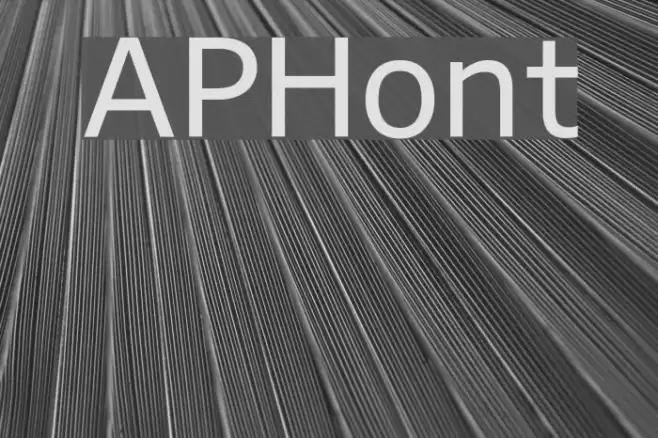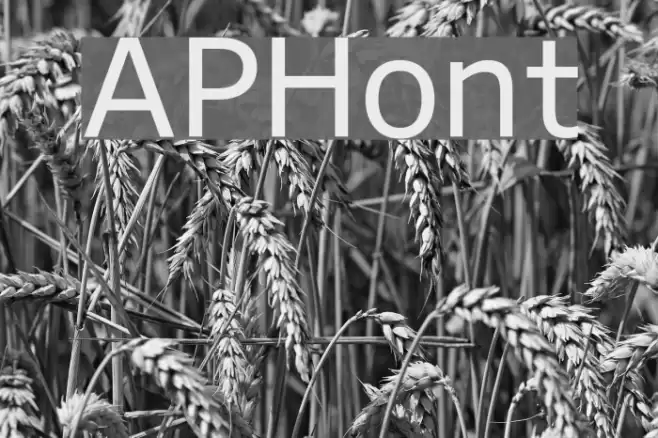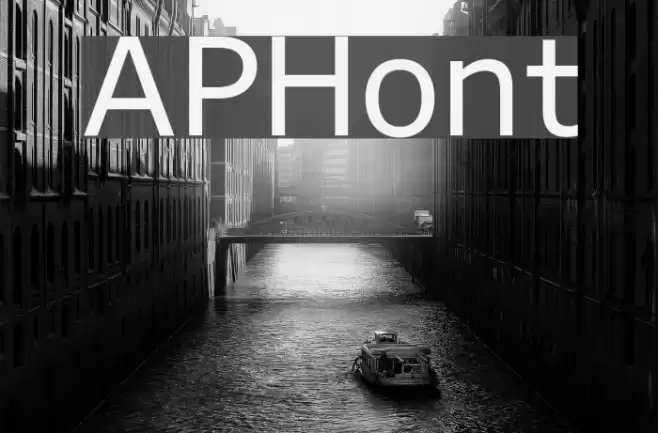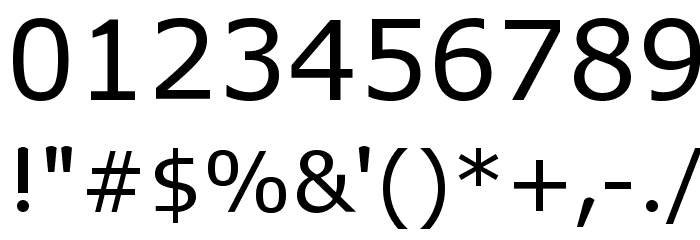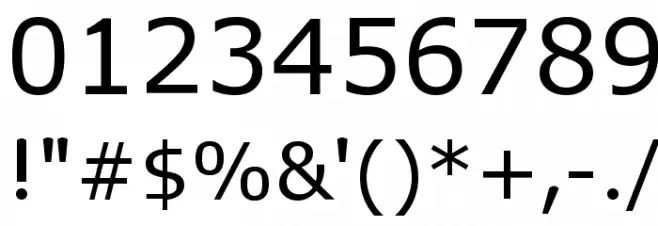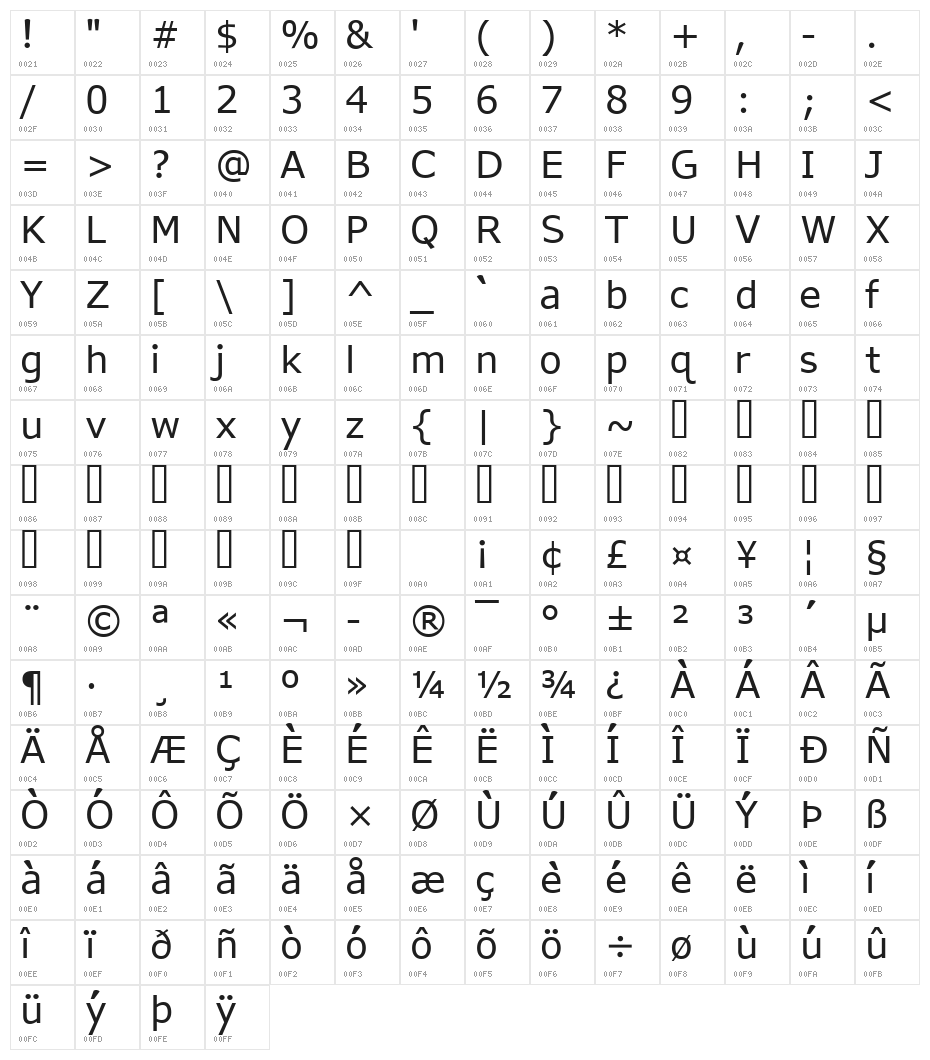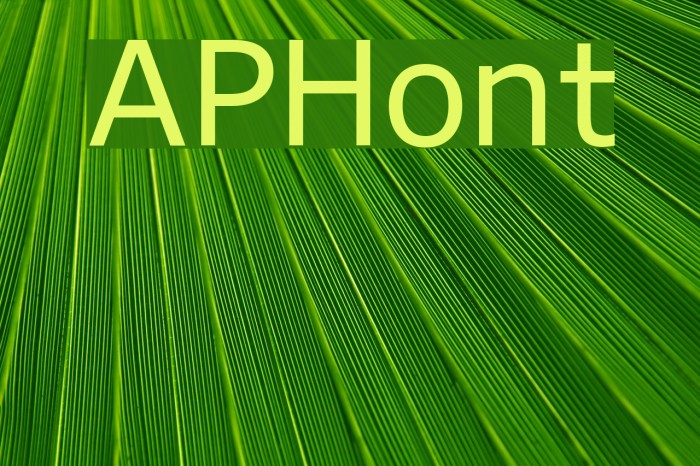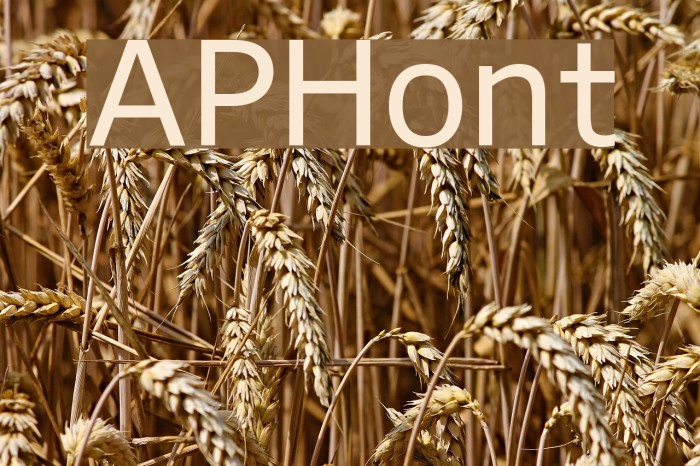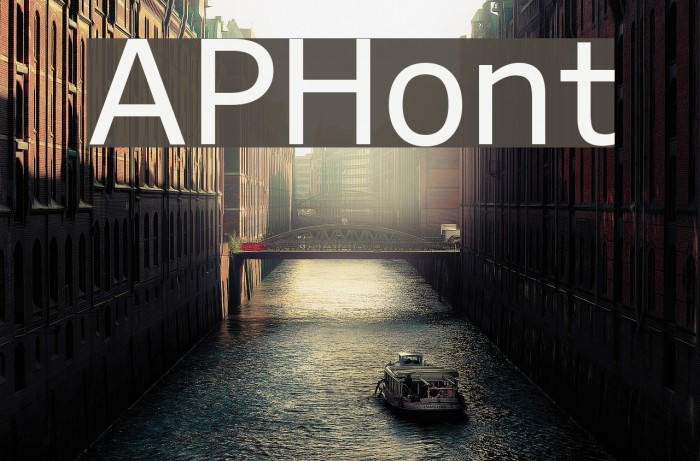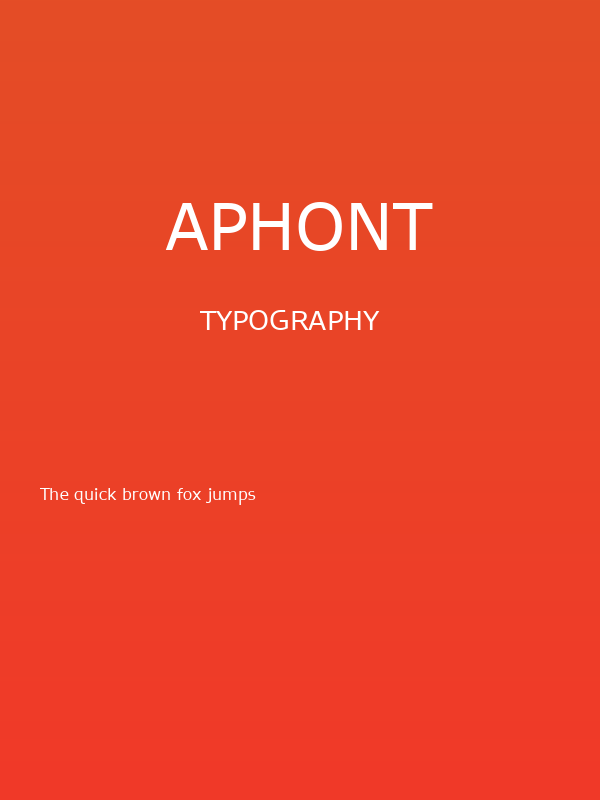
APHont Font
APHont Description
This font is a clean and highly legible sans-serif typeface, designed with accessibility in mind. It features a straightforward and modern design with uniform stroke widths, which enhances readability across various mediums. The characters are well-proportioned, with a balanced height and width that contribute to its clarity. The spacing between letters is normal, ensuring that each character stands out distinctly without crowding. This font is particularly suitable for digital screens, offering excellent visibility and ease of reading. Its simplicity and lack of decorative elements make it versatile for both professional and casual applications.
A clean, accessible sans-serif font with uniform strokes and excellent readability from Uncategorized fonts.
- Proposed Projects: Ideal for digital interfaces, educational materials, signage, and any project requiring high legibility.
- Use Case: Digital interfaces, educational materials, signage